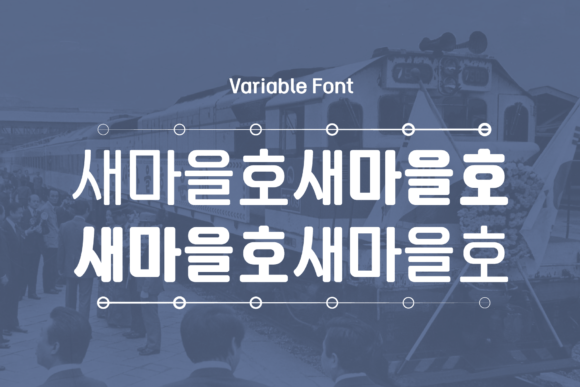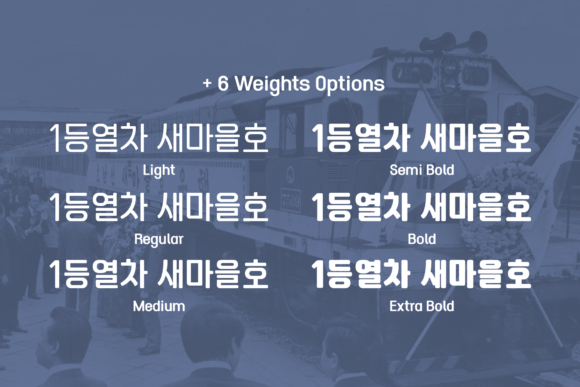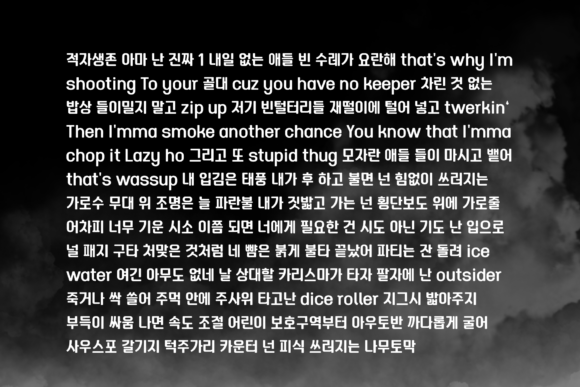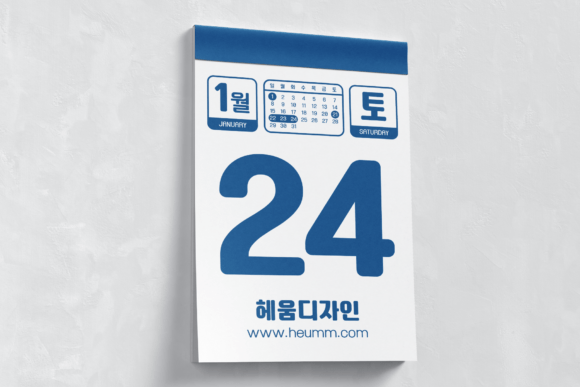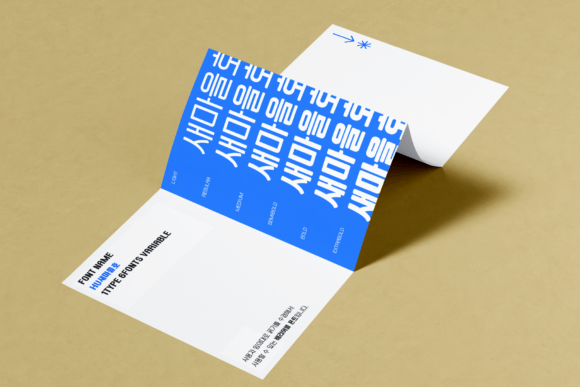
Introduction to Retroround Kr Font
‘HU Retroround KR’ is a font that captures the feel of the retro typefaces used on signboards during Korea’s modernization era.
This font has a variable function, allowing users to fine-tune the thickness they want (Available only in Adobe programs.
Key Features of Retroround Kr Font